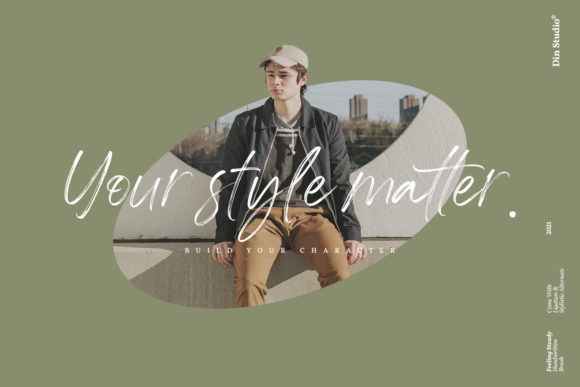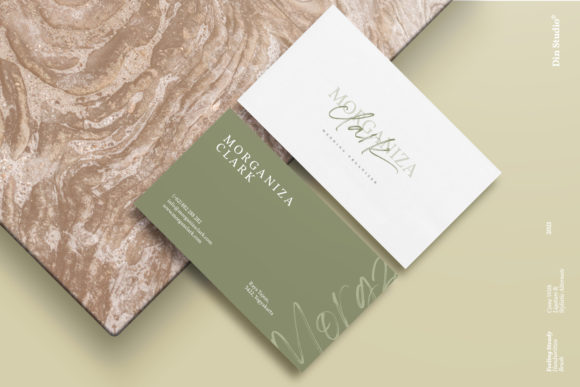
Feeling Steady Font
db-ku.com - Script & Handwritten -- Feeling Steady is a fashionable and beautiful brushed handwritten font, described by a refined touch. Fall in love with its distinct and timeless style and use it to create spectacular designs!